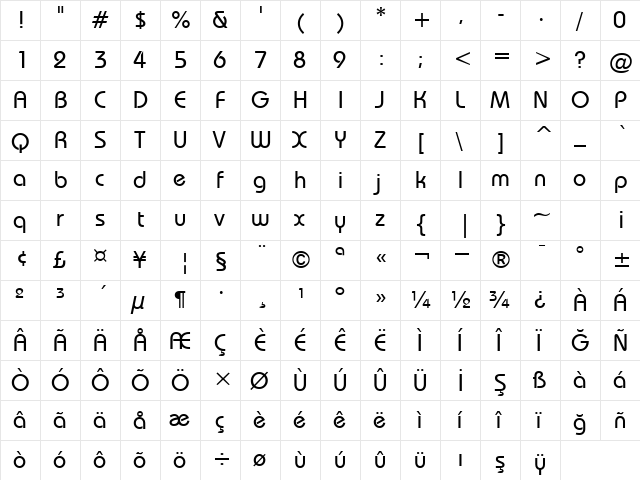
00287 Regular
Design Context for 00287 Typeface
00287 is a composed and adaptable typeface that performs quietly and consistently across a wide range of design contexts.